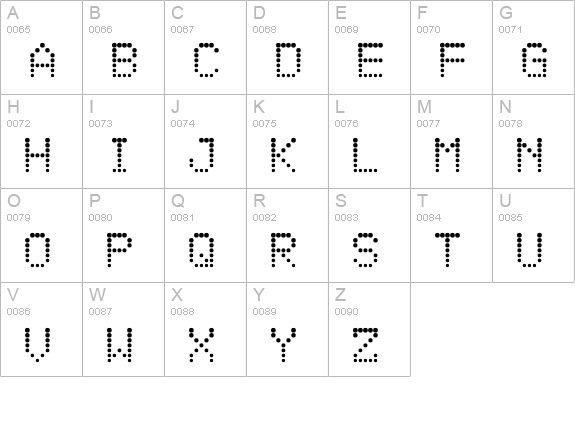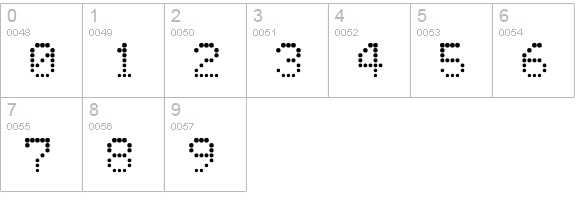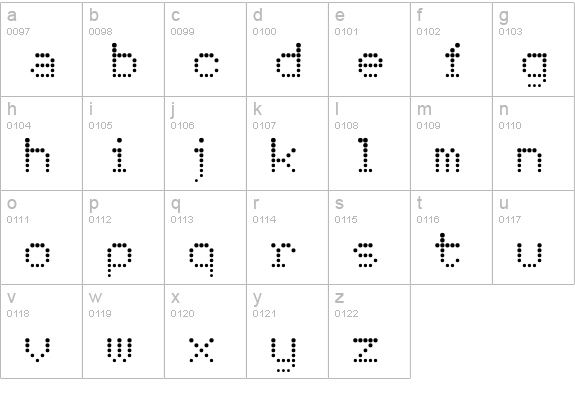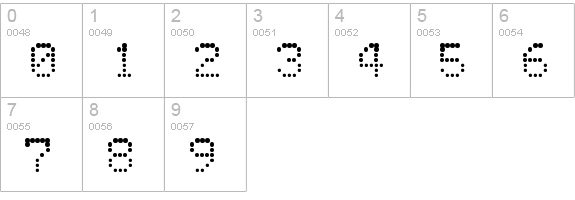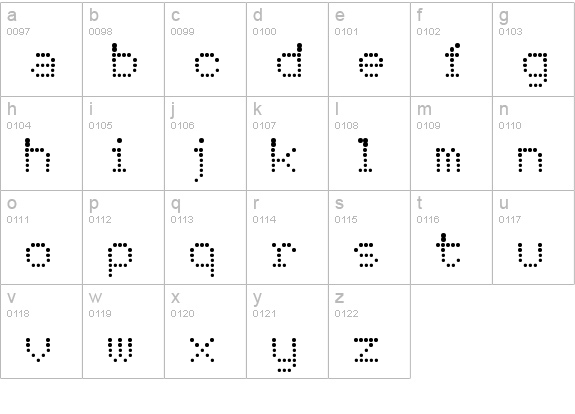
The Atomic Clock Radio font is a sleek and modern typeface that exudes a sense of sophistication and efficiency. With its clean lines and futuristic design, this font is perfect for projects that require a contemporary and cutting-edge look. The sharp angles and precise spacing of the characters give the Atomic Clock Radio font a unique and distinctive appearance that is sure to make your designs stand out. Best of all, this font is available for free download at FontsMarket.com, making it easily accessible to anyone looking to add a touch of modernity to their projects. Whether you're working on a branding project, website design, or any other creative endeavor, the Atomic Clock Radio font is a versatile and stylish choice that is sure to impress. Download it today and see how it can elevate your designs to the next level.